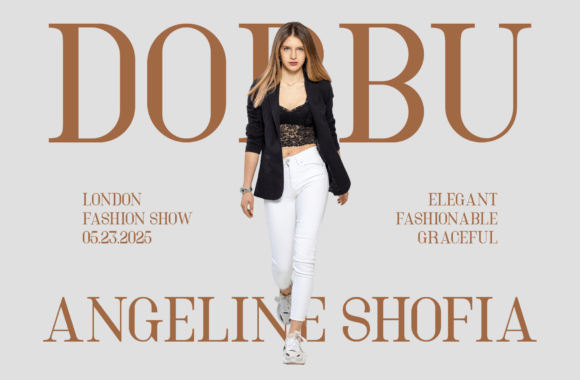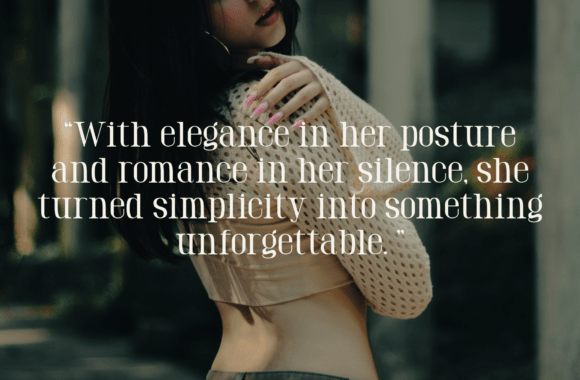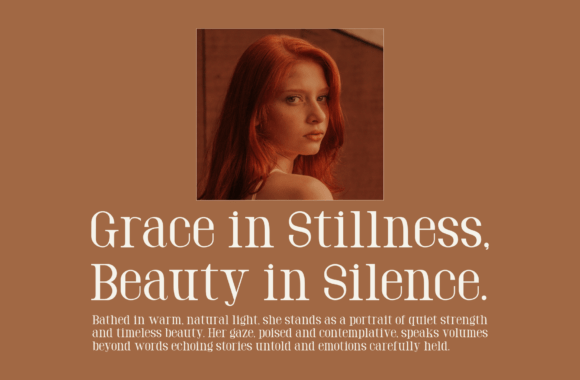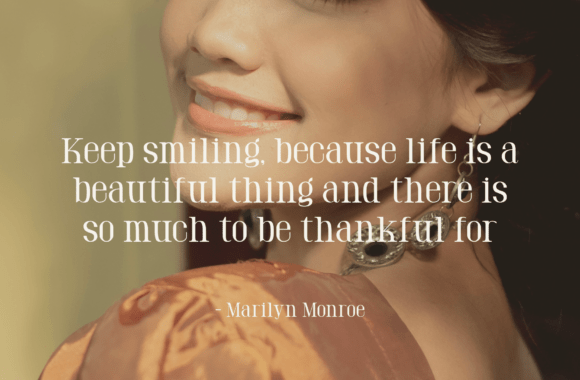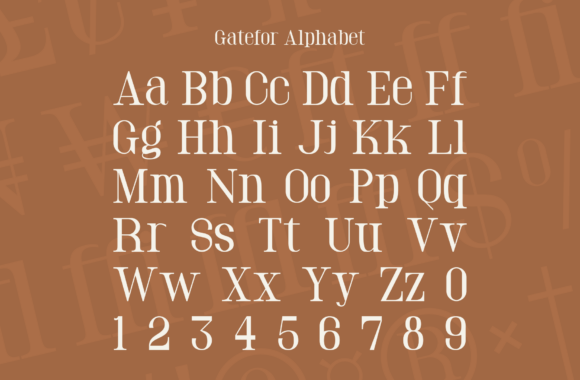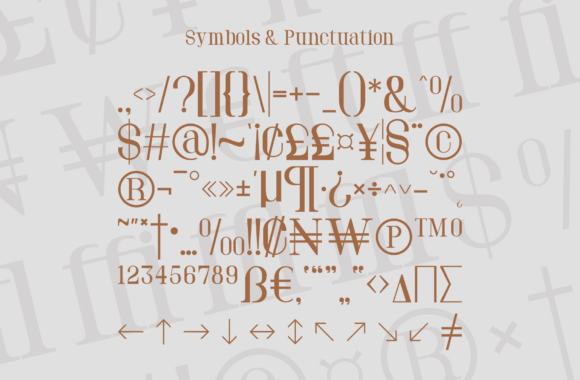
Introducing Gatefor Font: The Epitome of Modern Sophistication and Timeless Elegance
In the realm of typography, few fonts manage to strike a balance between modern sophistication and timeless elegance. Gatefor Font, however, achieves this delicate balance with remarkable finesse. This refined serif typeface is designed to cater to the needs of designers and crafters seeking a distinguished and polished typographic voice for their projects.
Design Characteristics of Gatefor Font
Gatefor Font is characterized by its sharp, high-contrast letterforms and distinctively flared serifs. These design elements lend the font a bold visual presence, making it an excellent choice for headlines, titles, and high-end promotional materials. The sharp contrast between the thick and thin strokes adds a level of sophistication, while the flared serifs introduce an element of elegance.
One of the standout features of Gatefor Font is its classic proportions with a contemporary twist. The font’s design is rooted in traditional serif typography, yet it incorporates modern elements that make it suitable for both digital and print applications. This versatility makes Gatefor an ideal choice for designers working on a wide range of projects, from fashion and lifestyle magazines to high-end branding and advertising campaigns.
Typography and Readability
Gatefor Font exhibits excellent readability, making it an excellent choice for body text as well as headlines. The font’s clear and legible design ensures that readers can easily navigate and comprehend text, even at smaller font sizes. This is particularly important for digital applications, where readability can be affected by screen resolution and other factors.
Character Set and Versatility
Gatefor Font includes a full set of uppercase and lowercase letters, numerals, and essential punctuation marks. This comprehensive character set makes the font versatile and suitable for use in a wide range of applications. Designers can use Gatefor to create everything from elegant magazine layouts to sophisticated website content.
Applications for Gatefor Font
Gatefor Font’s unique blend of modern sophistication and timeless elegance makes it an excellent choice for various applications, including:
• Fashion and lifestyle magazines: Gatefor’s elegant design and high-end feel make it perfect for fashion and lifestyle publications.
• High-end branding and advertising: The font’s sophisticated and polished appearance makes it suitable for luxury brands and high-end promotional materials.
• Magazine layouts: Gatefor’s classic proportions and modern twist make it an excellent choice for magazine layouts, including articles, headlines, and titles.
• Digital content: Gatefor’s legibility and versatility make it suitable for digital applications, including websites, blogs, and social media.
Why Choose Gatefor Font?
Gatefor Font offers a unique combination of modern sophistication and timeless elegance, making it an excellent choice for designers seeking a distinguished and polished typographic voice. The font’s sharp, high-contrast letterforms, distinctively flared serifs, and excellent readability make it suitable for a wide range of applications.
By choosing Gatefor Font, designers can add a touch of elegance and sophistication to their projects, elevating their brand’s visual identity and communicating a sense of refinement and luxury. Whether working on fashion and lifestyle magazines, high-end branding and advertising campaigns, or digital content, Gatefor Font is an excellent choice for designers seeking to make a lasting impression.
Font Name Gatefor Font
Author Razetype
Gatefor Font is a refined serif typeface that seamlessly blends modern sophistication with timeless elegance. With its sharp, high-contrast letterforms, distinctively flared serifs, and excellent readability, Gatefor offers a bold visual presence while maintaining a polished and sophisticated appearance. Its versatility, comprehensive character set, and classic proportions with a contemporary twist make it suitable for a wide range of applications, from fashion and lifestyle magazines to high-end branding and digital content. For designers seeking a distinguished and polished typographic voice, Gatefor Font is an excellent choice.